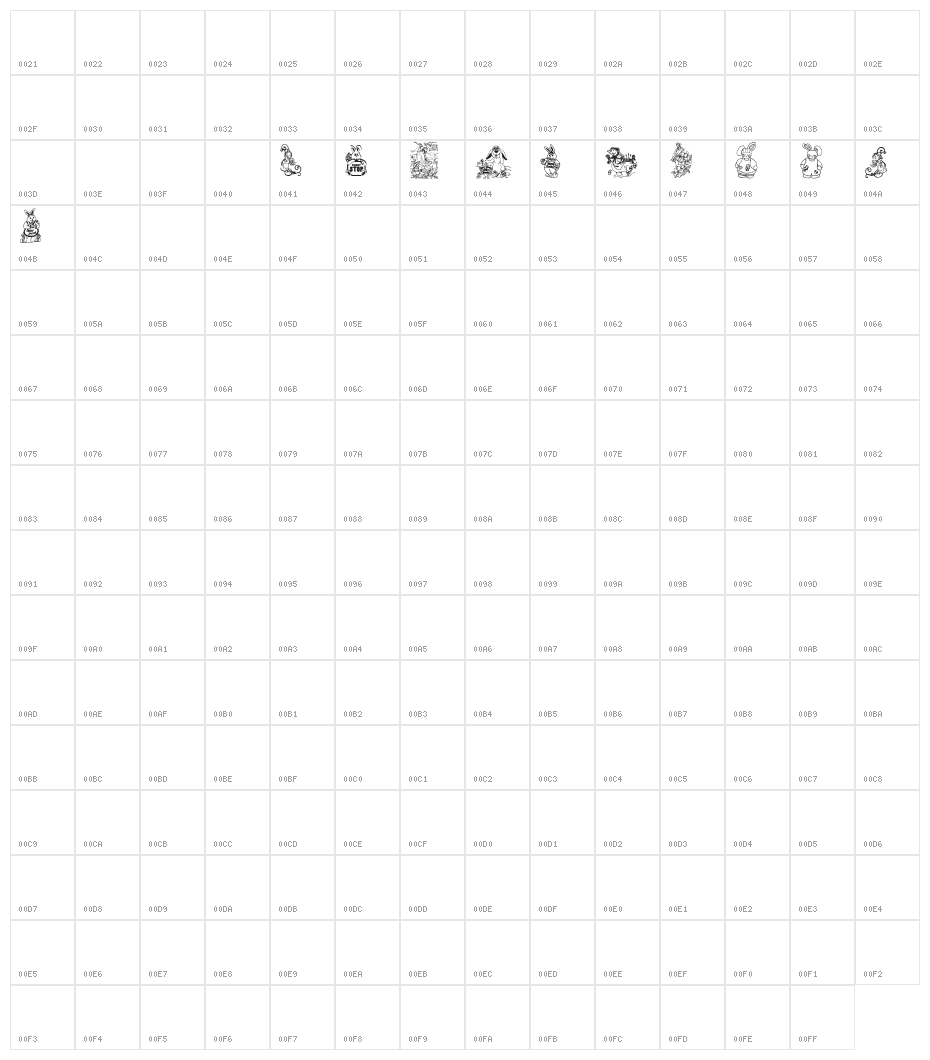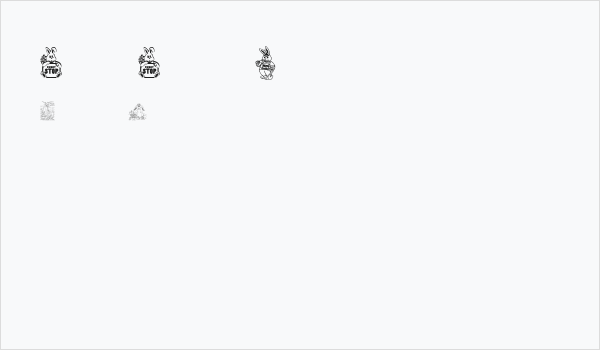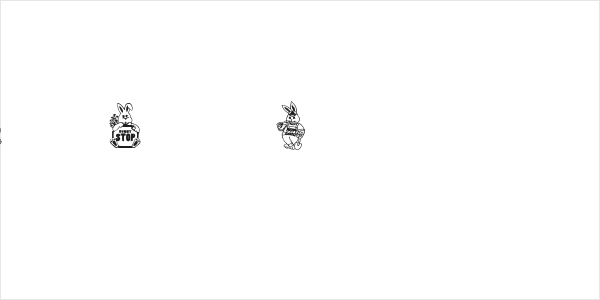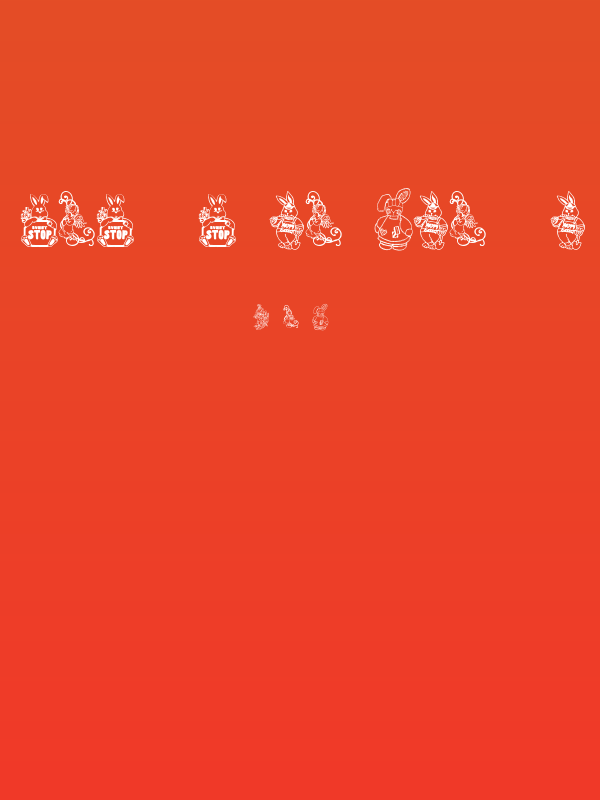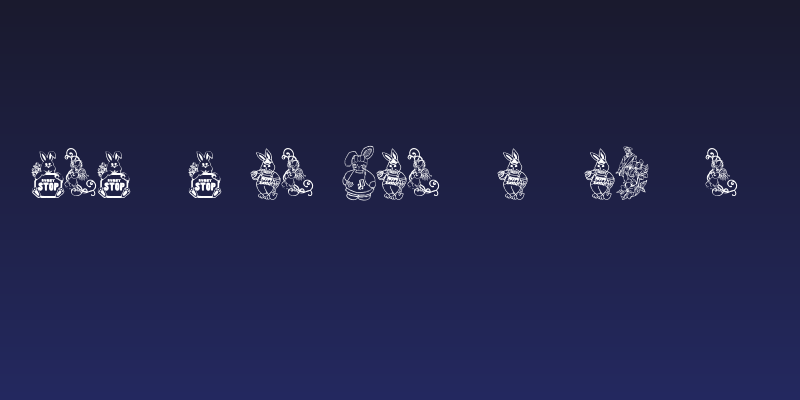
BabysBreathEasterRegular Font
BabysBreathEasterRegular Description
This font is a whimsical and playful decorative typeface featuring Easter-themed illustrations. Each character is represented by a unique and detailed drawing, incorporating elements such as bunnies, eggs, flowers, and other festive motifs. The style is intricate and artistic, making it ideal for creative projects that require a touch of holiday charm. The characters are not traditional letters but rather illustrations that convey a festive and joyful atmosphere.